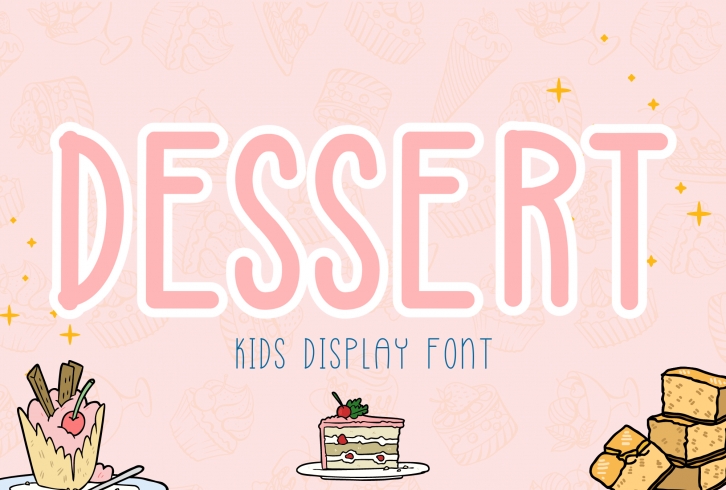
Dessert is a cute and playful display font. It matches a wide range of creations that require a sweet, natural touch. This font is perfect for children themed designs, especially when combined with bright colors.